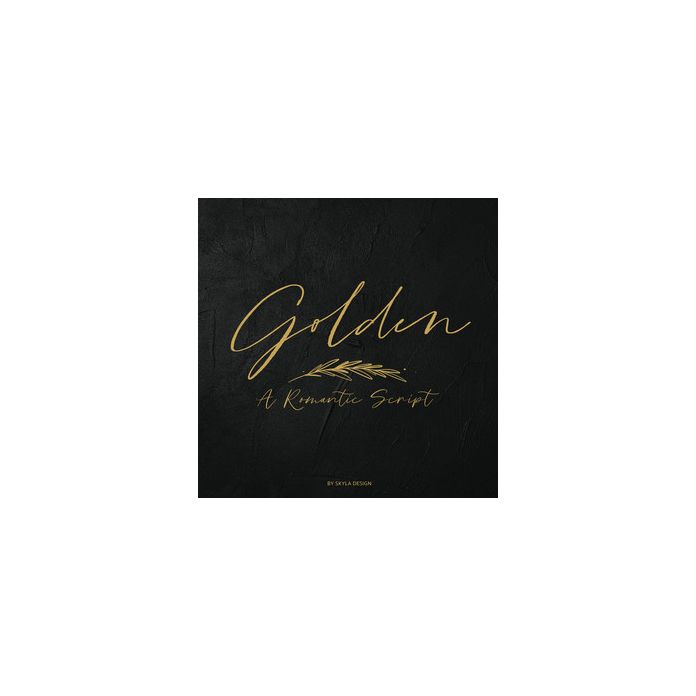
golden romantic wedding script font
Golden is a stunning romantic script font that can be used to create the most gorgeous wedding designs, stationery & cards.